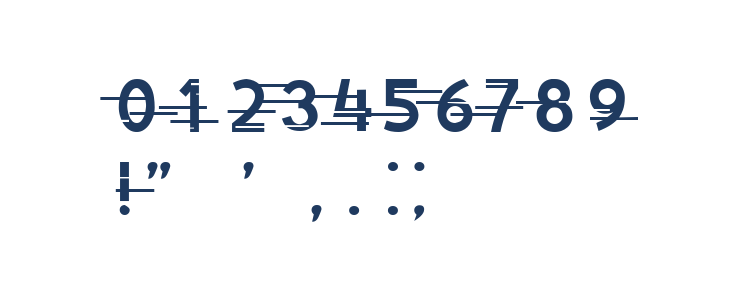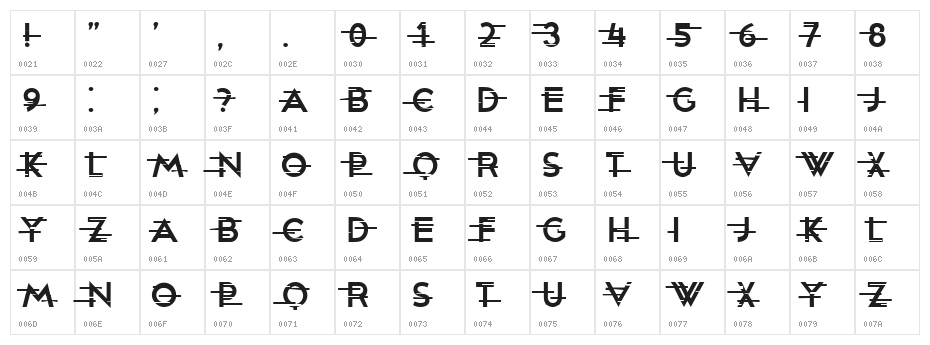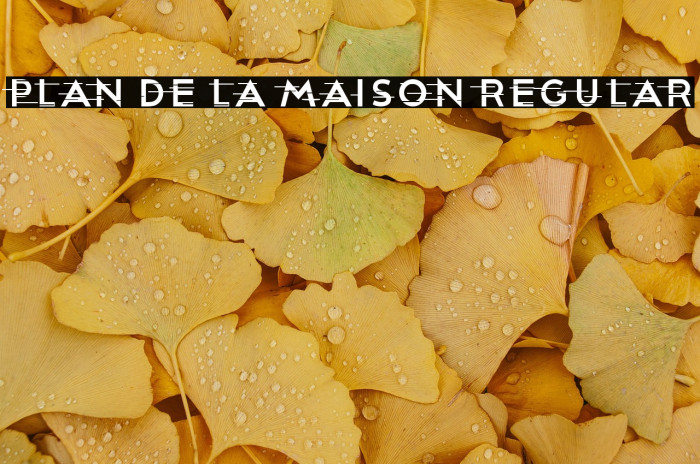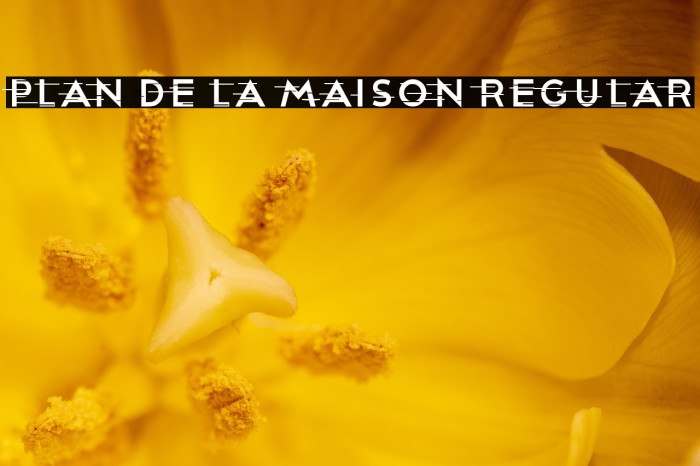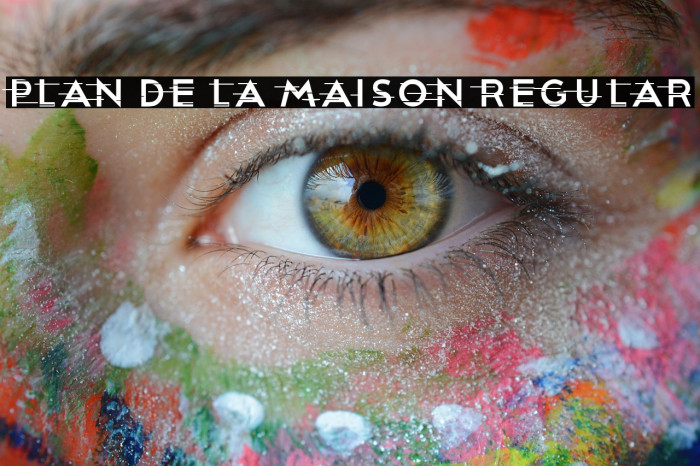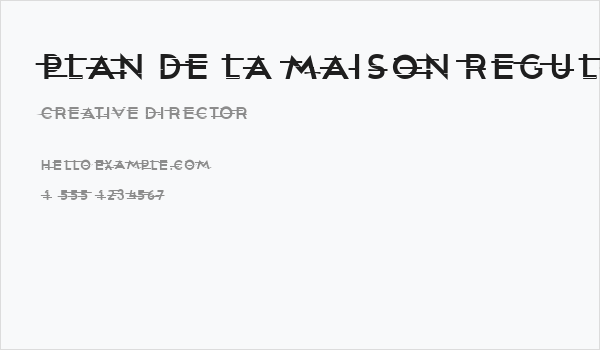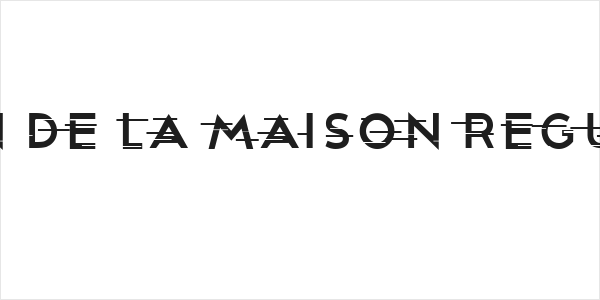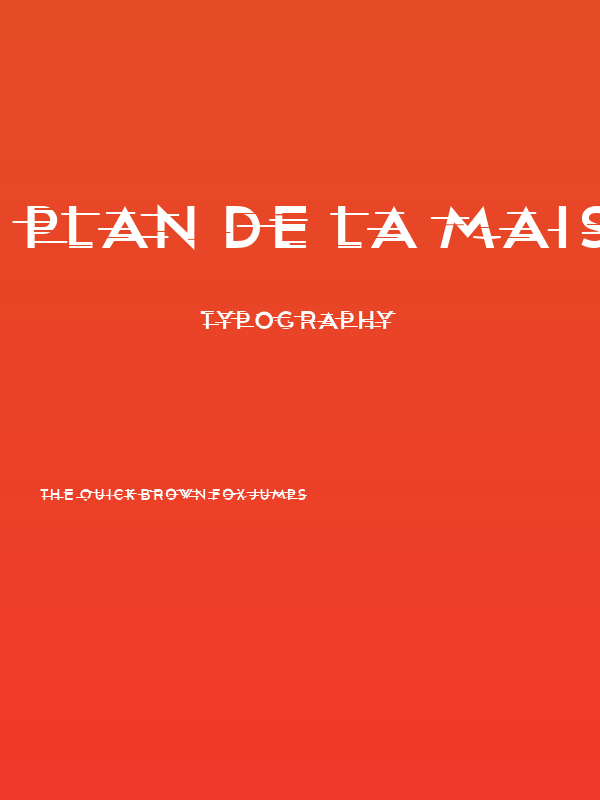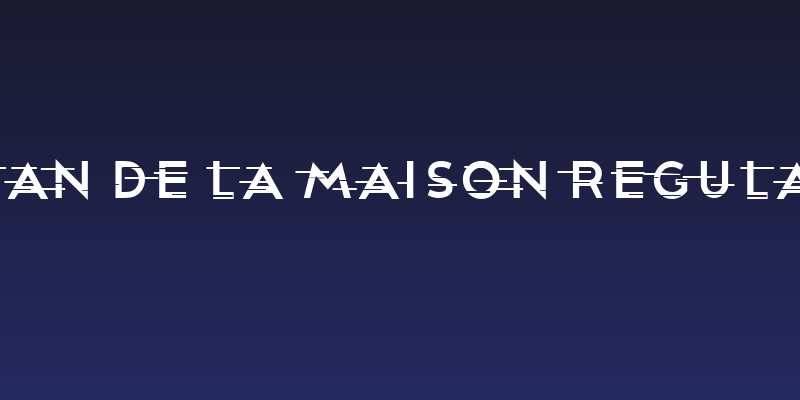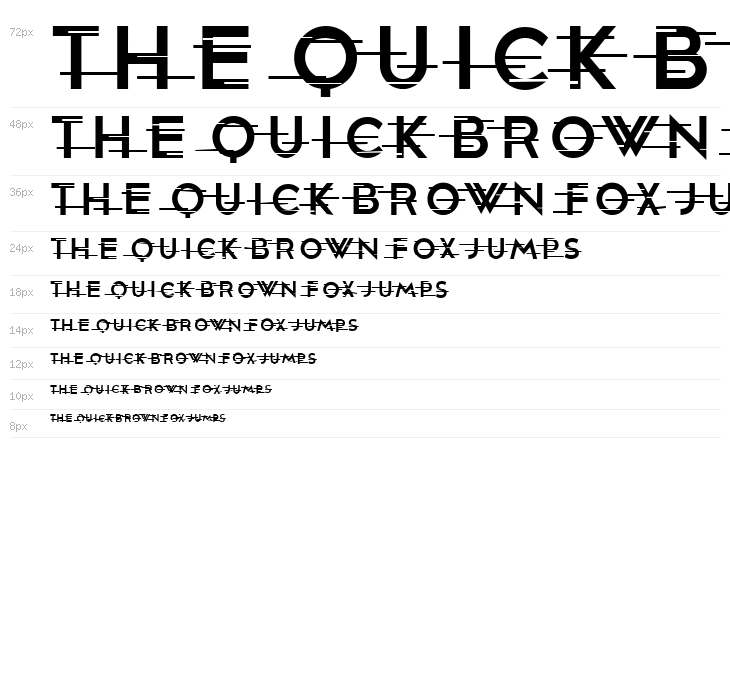
Plan De La Maison Regular Font
Plan De La Maison Regular Description
This font features a unique and striking design with a modern, artistic flair. Each character is bisected by a horizontal line, creating a dynamic and visually engaging effect. The letters are bold and geometric, with clean lines and sharp angles that convey a sense of precision and contemporary style. The uppercase and lowercase letters maintain a consistent aesthetic, while the numerals and special characters integrate seamlessly into the overall design. This font's distinctive appearance makes it ideal for creative projects that require a bold statement.